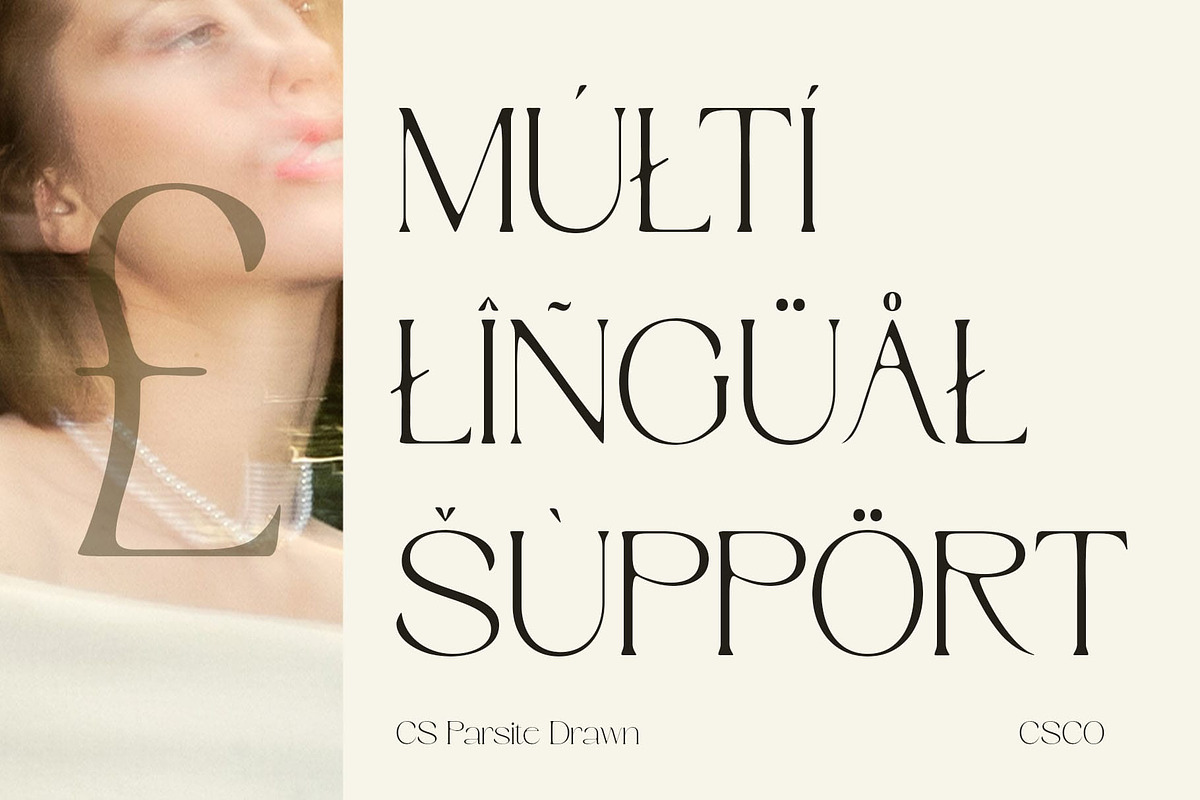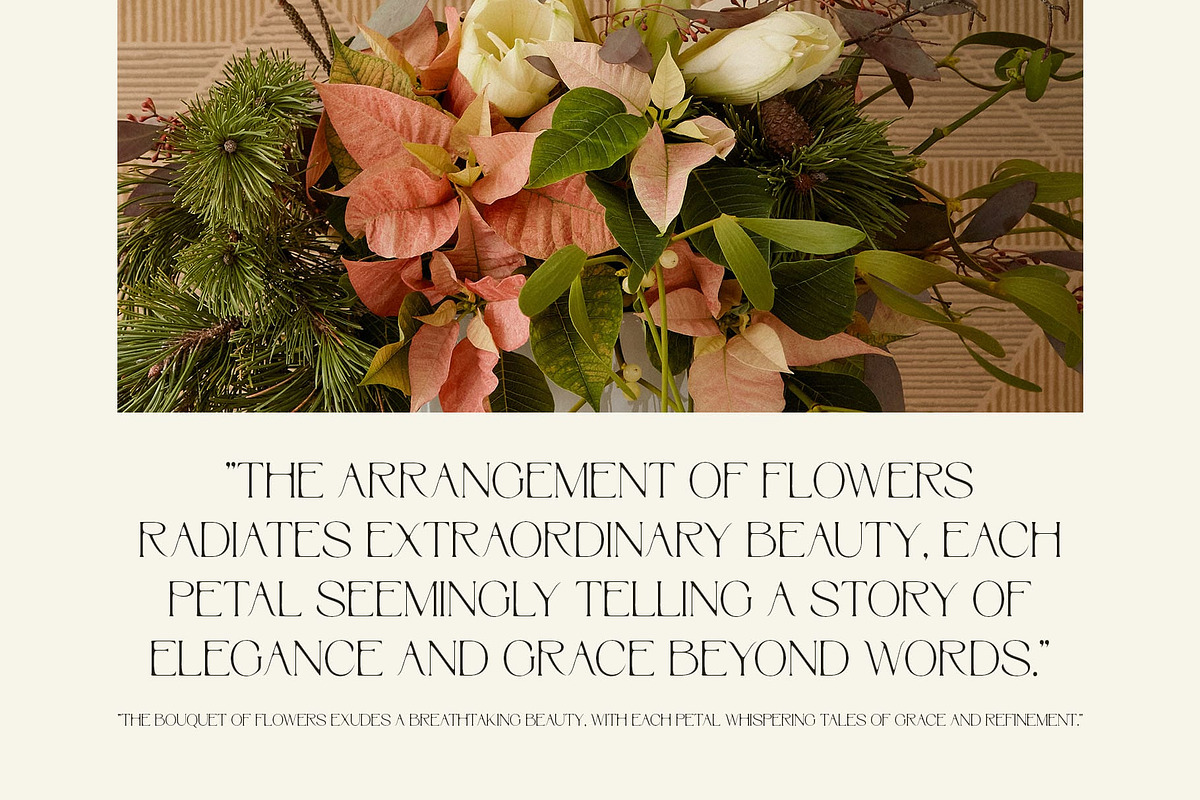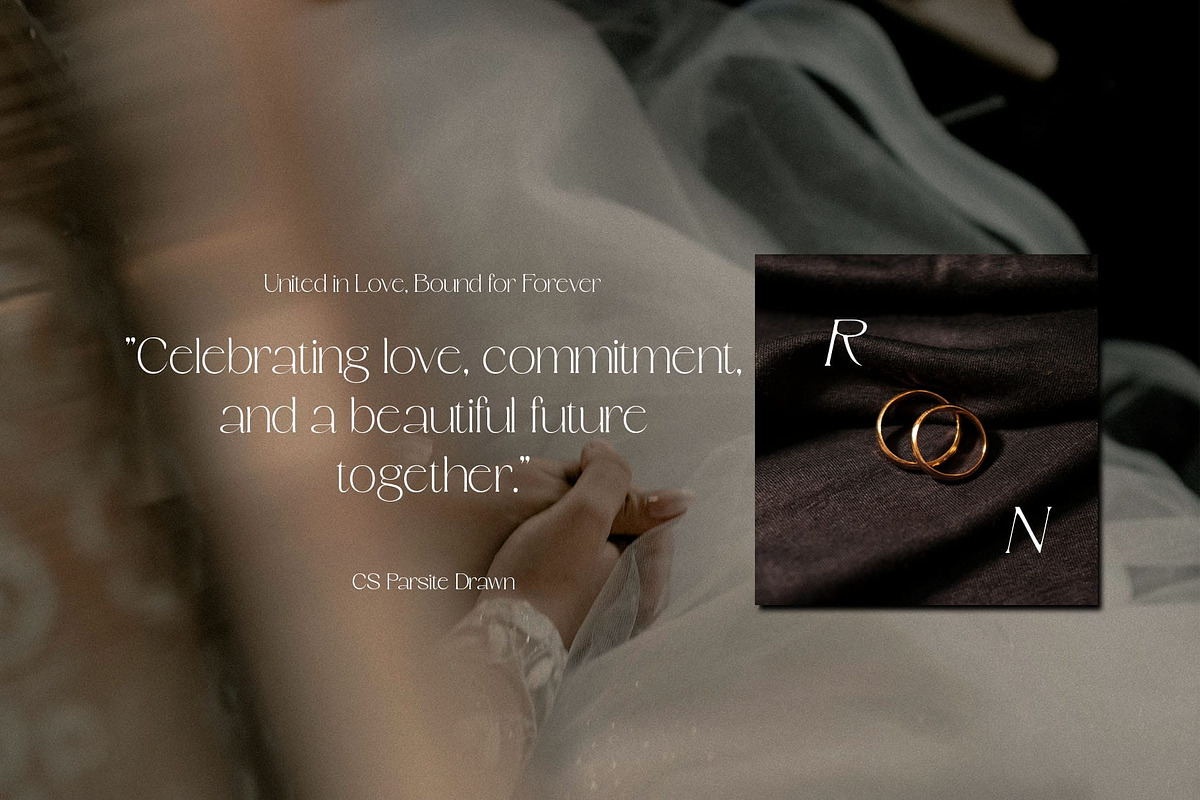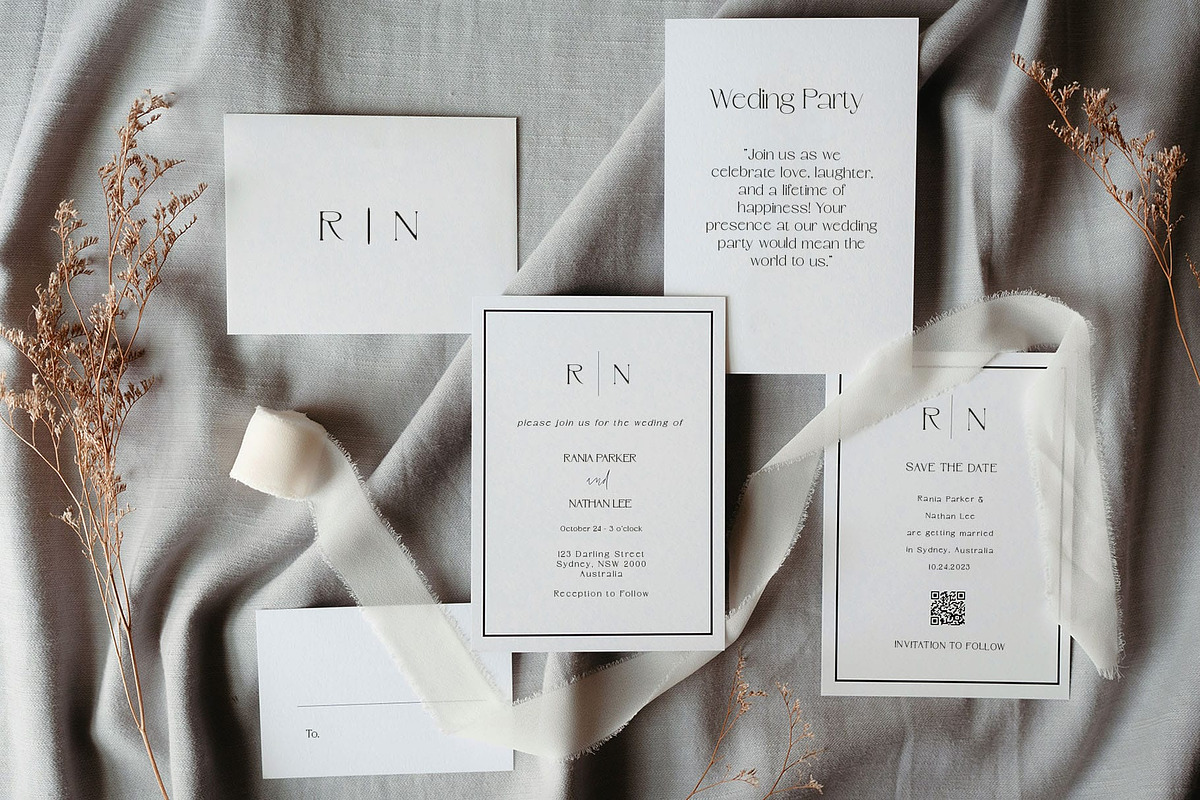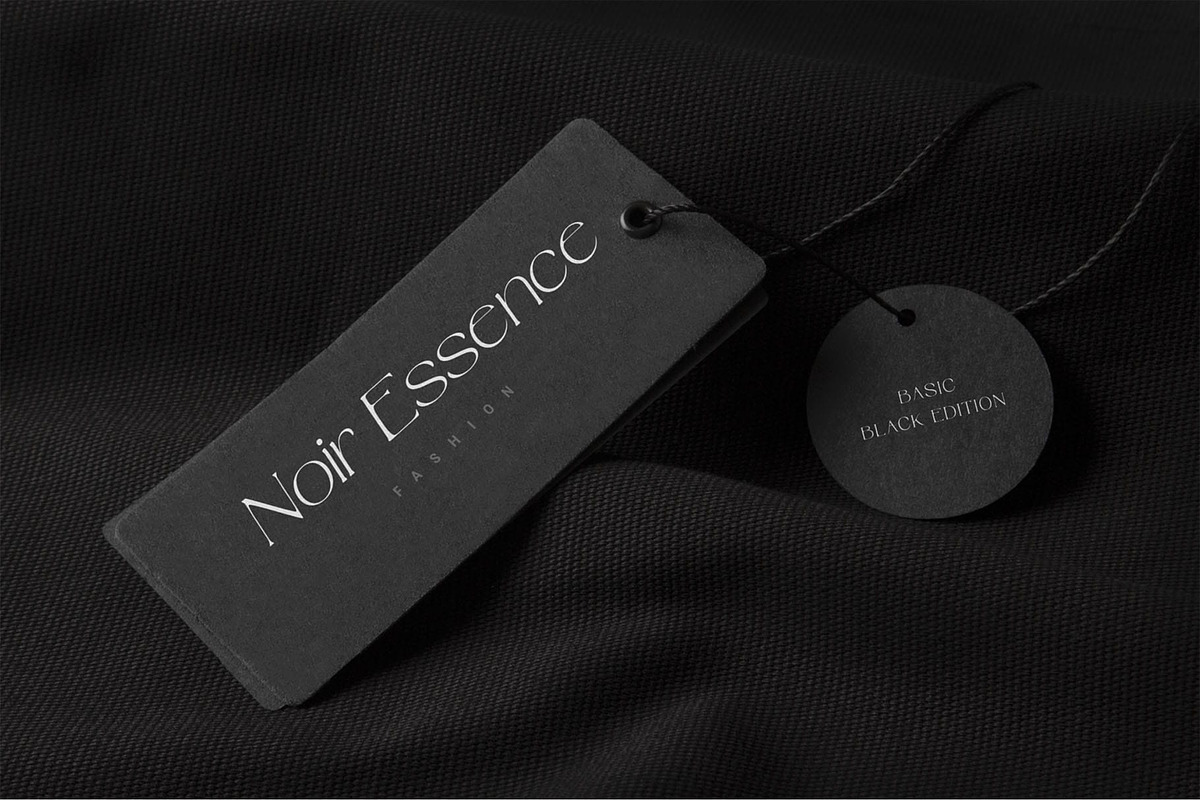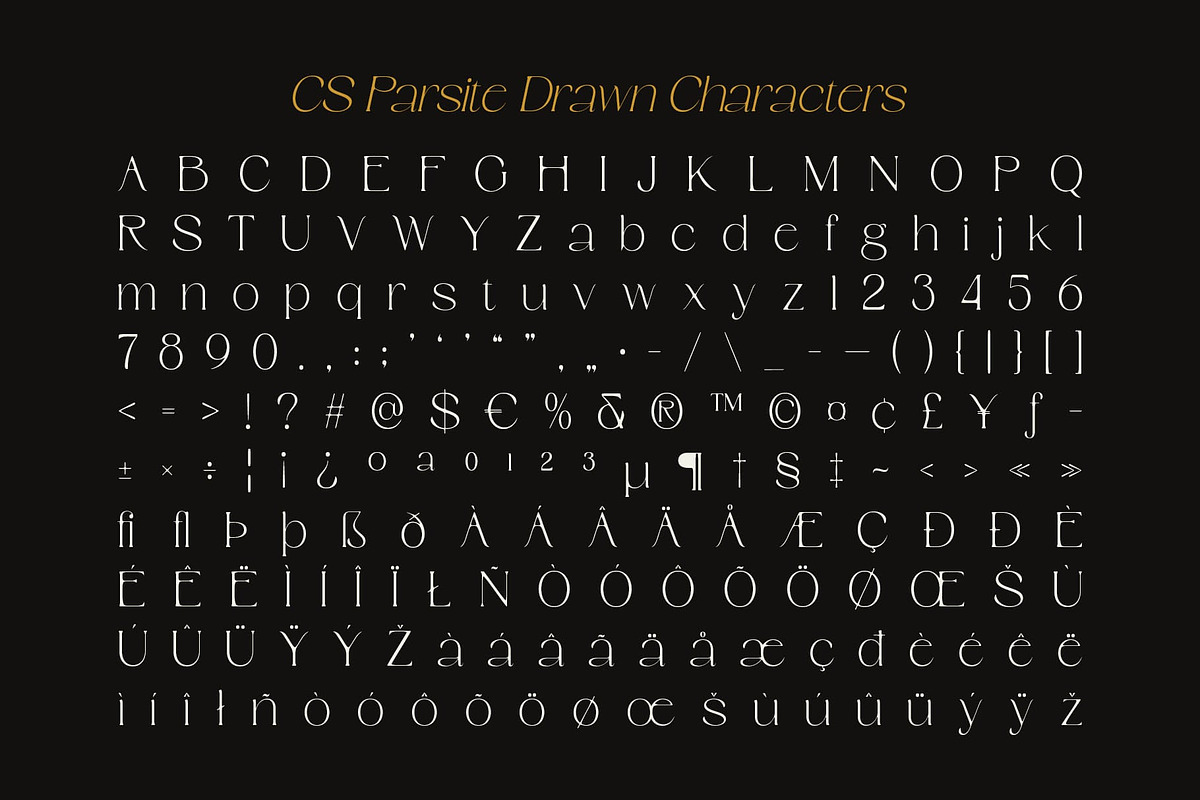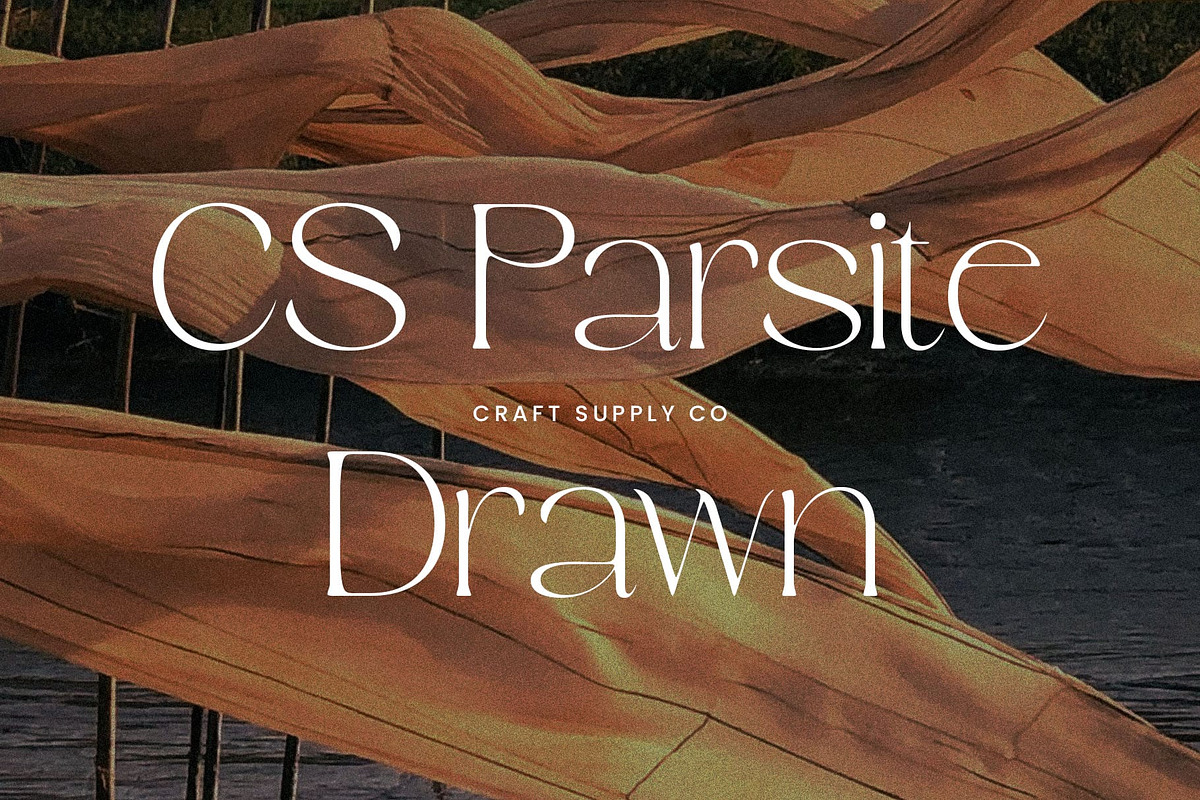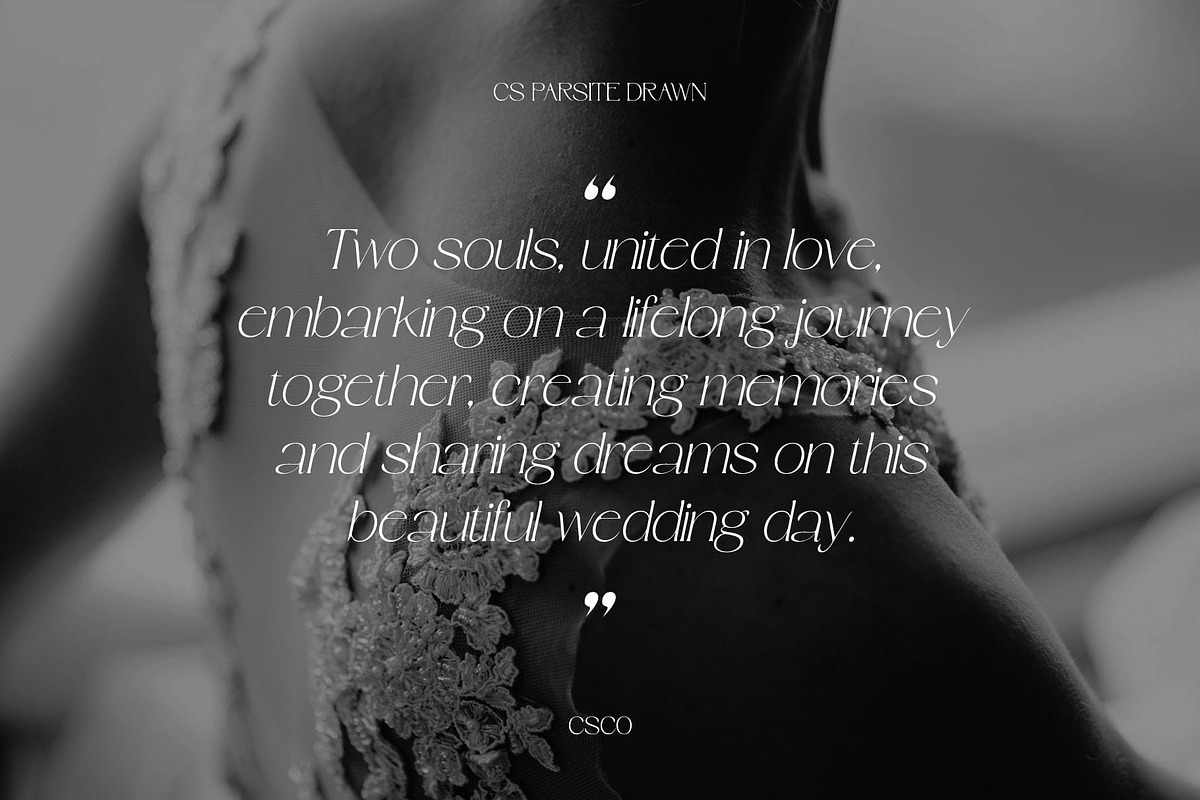
CS Parsite Drawn
CS Parsite Drawn – Elegant Serif Font with a Handcrafted Touch
A Fusion of Minimalism and Artistic Flair CS Parsite Drawn is a modern serif font that effortlessly blends sleek minimalism with a subtle, handcrafted charm. Featuring slim, clean letterforms, this font exudes an elegant and organized aesthetic, offering a clear and easy-to-read appearance. Its minimalist design highlights sophistication and simplicity, making it ideal for designs that require a modern, refined feel.
Organic Texture and Depth through Drawn Effects What sets this modern font apart is the unique drawn effect layered over its clean lines. This effect adds an organic, hand-crafted texture, giving the font a more personal and creative edge. The drawn lines introduce depth and visual interest, enriching the design with a touch of artistry while preserving the modern sophistication of the serif style.
Sophisticated, Aesthetic, and Refined The combination of clean, minimalistic shapes with a hand-drawn texture results in a font that is both elegant and rich in character. The refined serif design ensures that this drawn font remains professional and polished, while the drawn effect adds an aesthetic, organic quality that elevates the font to a higher level of artistry. The balance between these elements creates a design that is not only modern and sophisticated but also full of visual intrigue.